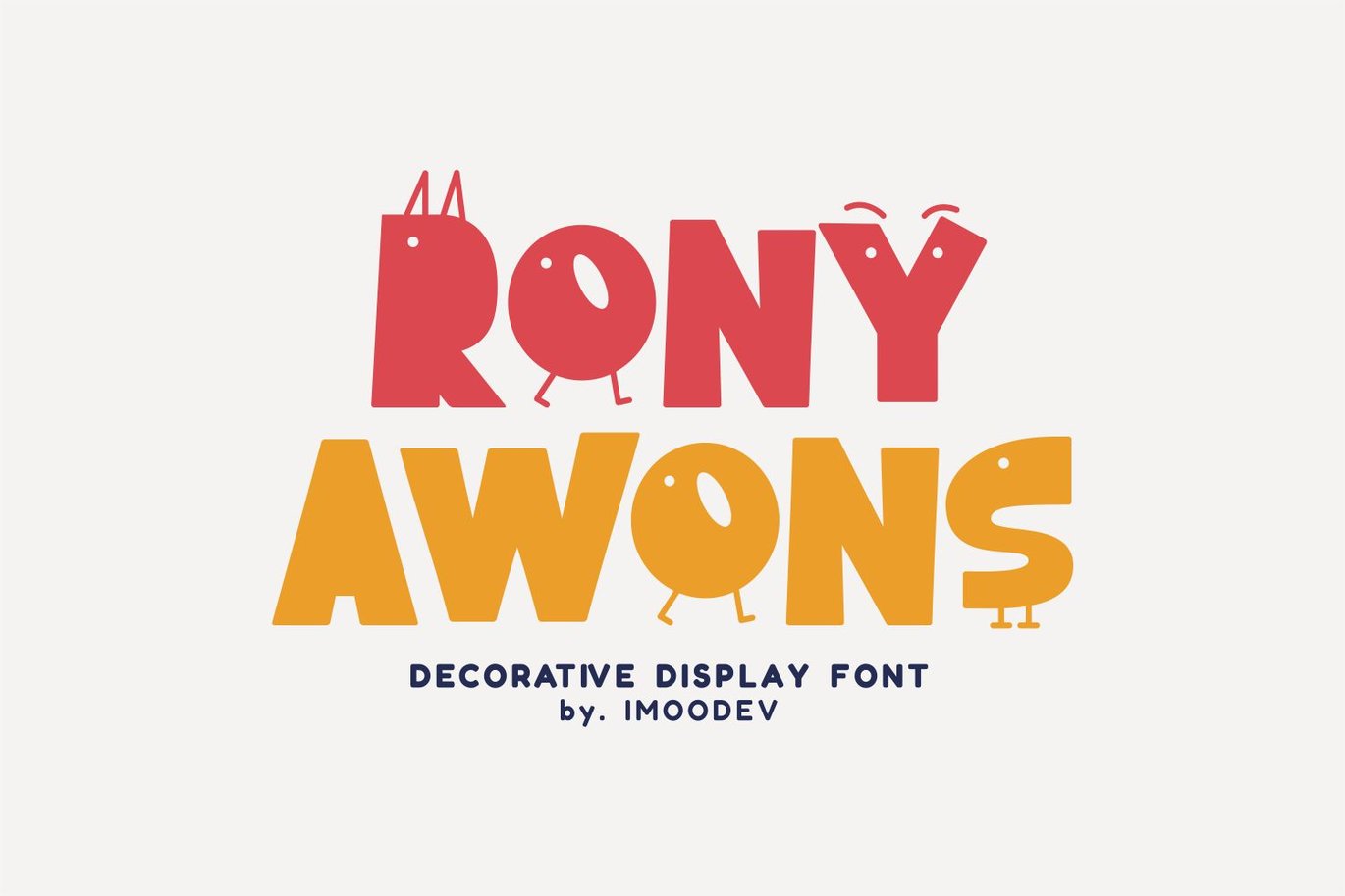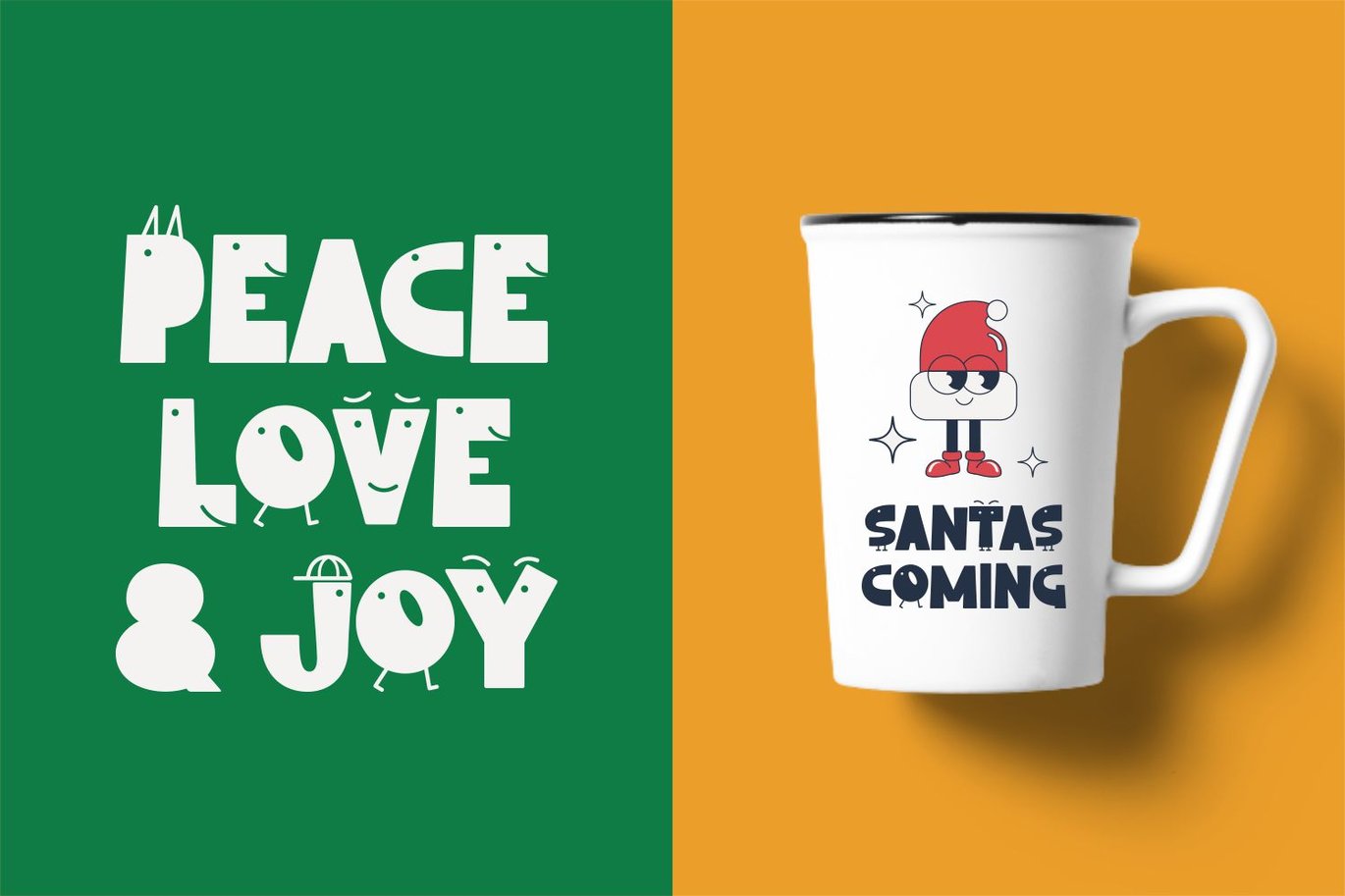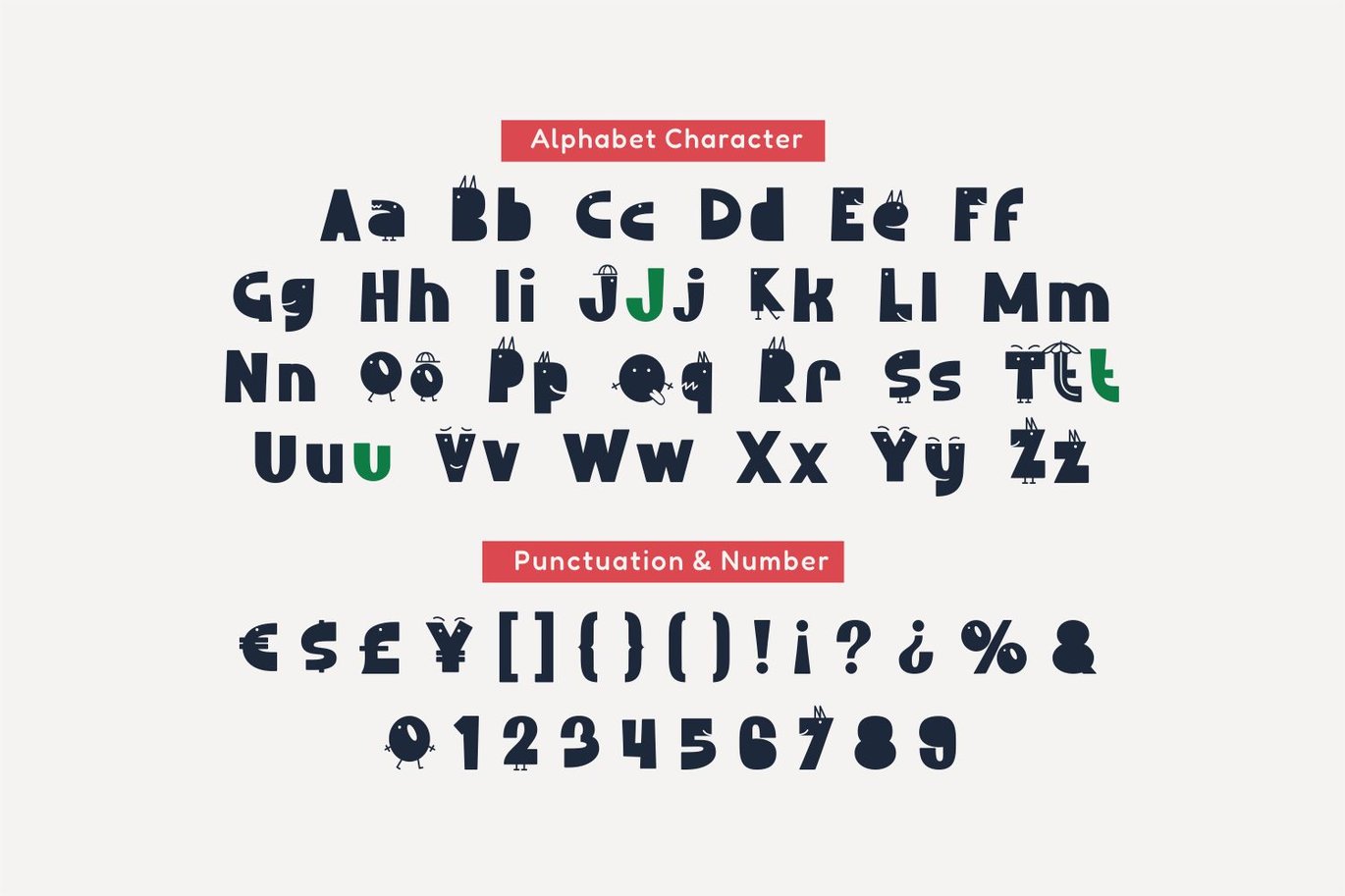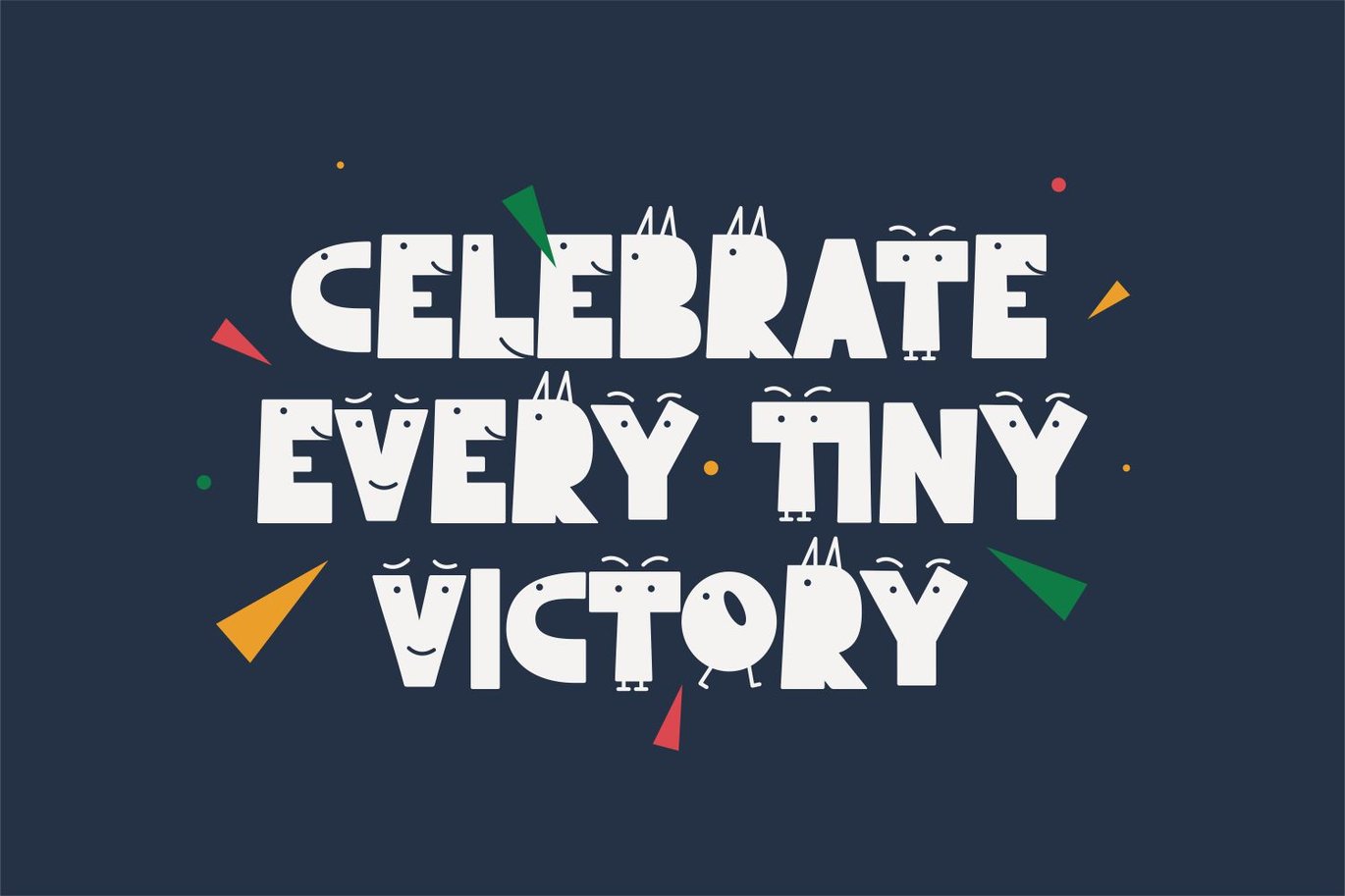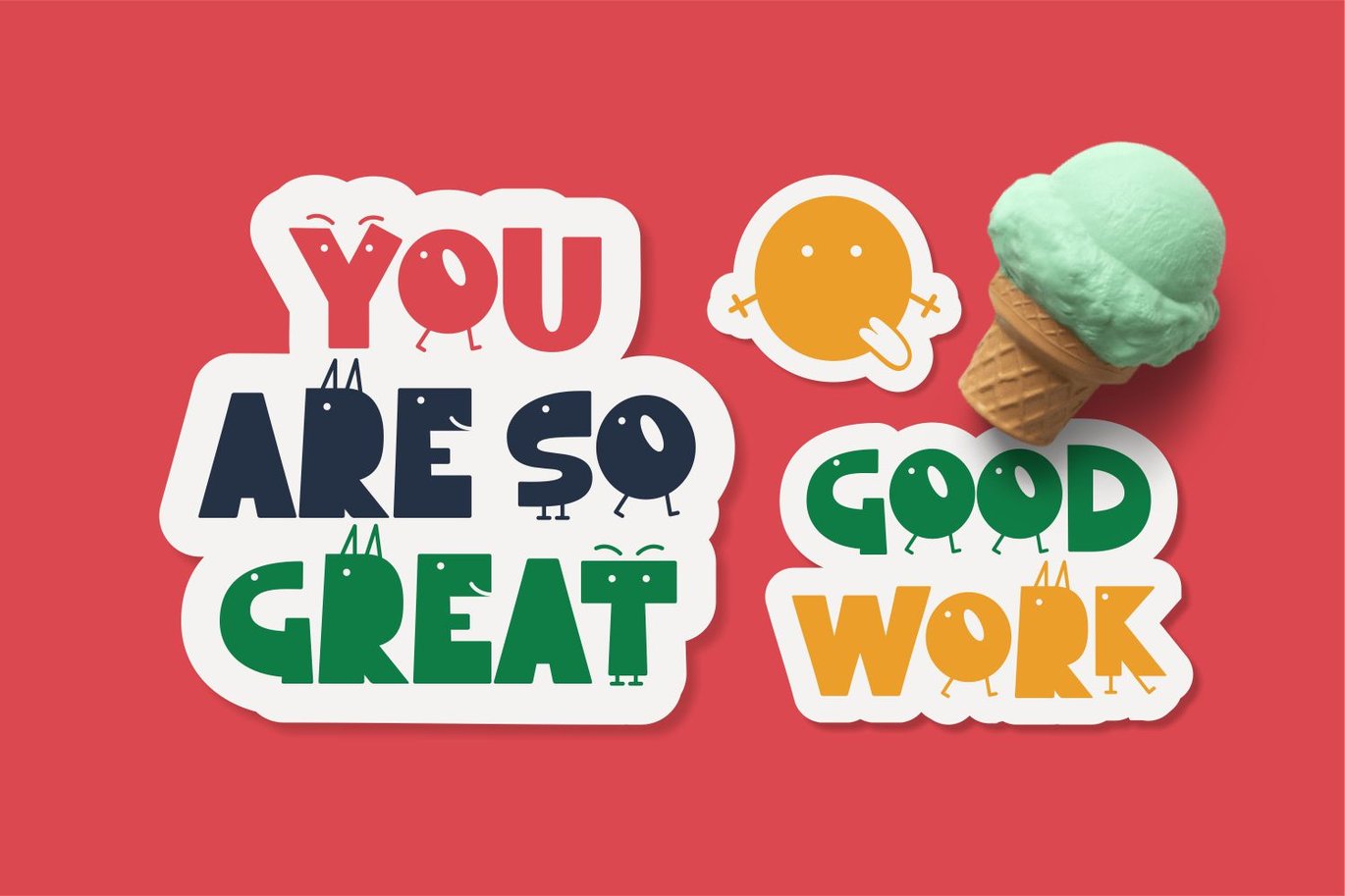
Rony Awons – Kids Font
Rony Awons is a kids font that has smooth curves and a visual style a can embodies charm and elegance in every lettering, making your work look stunning and attractive.
A versatile font that works in both uppercase and lowercase sizes, suitable for a wide variety of projects such as a display font for headings, logo fonts, invitations, branding, magazine, photography, card, product packaging, product mockup, mugs, posters, labels, editorials, art deco, and any type of advertising purpose.